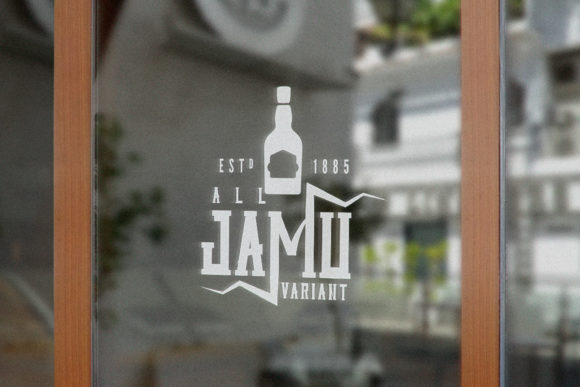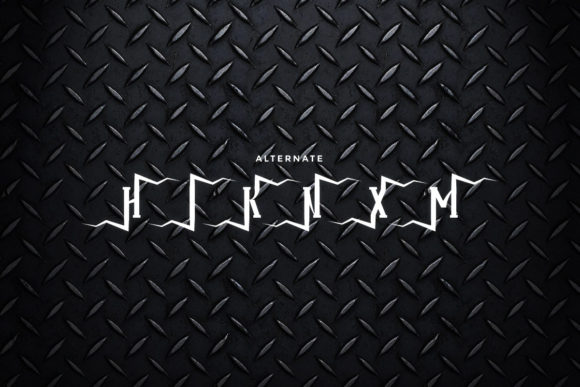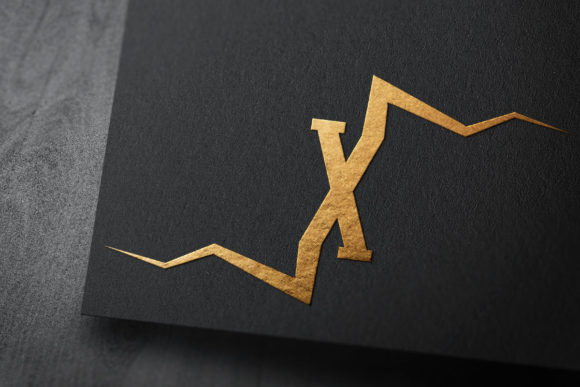
Introduction to Iron Master Font
Iron Master is a cool, bold and thick lettered display font.
It is ideal for writing web designs, business cards, or pretty much anything else that requires a futuristic touch .
Key Features of Iron Master Font
Why Choose Iron Master Font?